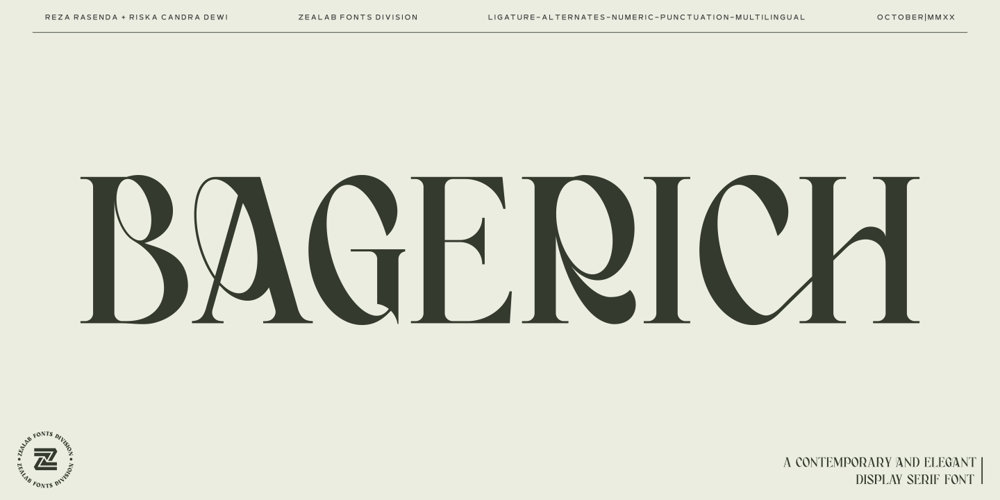
Bagerich Font Family was designed by Reza Rasenda and published by Zealab Fonts Division. Bagerich contains 1 styles and family package options. Bagerich is font designed by Reza Rasenda & Riska Candra Dewi, with design choices inspired by the Art Nouveau era. Bagerich comes with stylistic, alternates, ligatures and supports multilingual languages. Create unique & beautiful logotype, use it as an elegant solution for your next magazine layout, or choose Bagerich for any graphics that require a sleek look with a elegant flair.